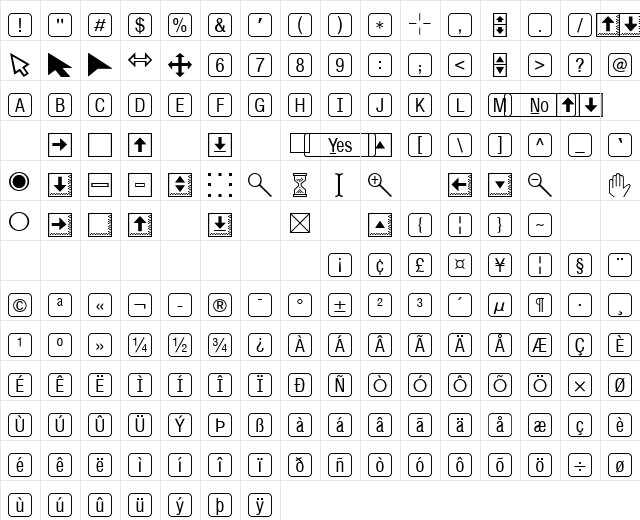
RRKeySampler Normal
Design Context for RRKeySampler Typeface
RRKeySampler offers clean, dependable letterforms without strong stylistic allegiance, making it a practical choice for designers who need flexibility.
Pro Tip: Use RRKeySampler in both headline and body roles to test its range before committing to a single application.